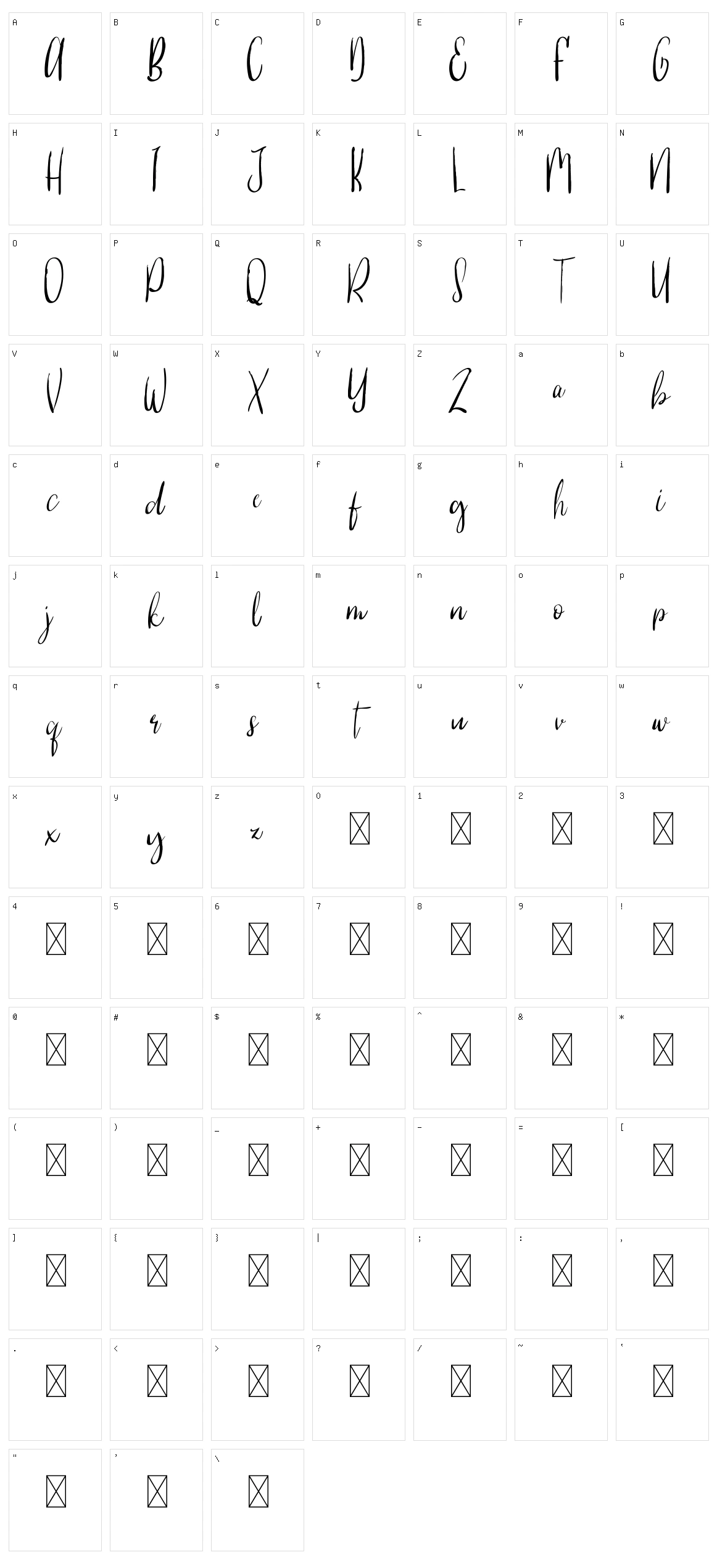
The free font Because Of You is carefully designed by Edric Studio, showcasing a thoughtful balance of creativity and usability and falls under the Script font style. When you download the ZIP file, it contains only 69.9 KB of font files, making it lightweight and quick to download. Please review the license details below to understand permitted usage and distribution rights. If license information is not available, we recommend using this font for personal projects only or contacting the author directly for commercial usage permissions.